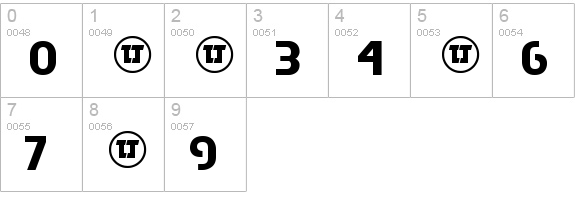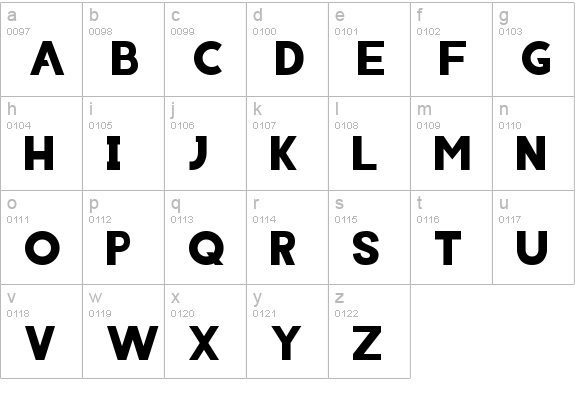
INICIO NORMAL Font Details
INICIO NORMAL is the standard, neutral variant in the INICIO typeface family \xE2\x80\x94 well suited to general body text, paragraphs, and standard typographic work.
INICIO NORMAL font is a modern and sophisticated typeface that exudes elegance and versatility. With its clean lines and balanced proportions, this font is perfect for a wide range of design projects, from branding and packaging to editorial and web design. The INICIO NORMAL font features a timeless appeal that is both contemporary and classic, making it suitable for various design styles. Its sleek and legible letterforms ensure readability, while its subtle details add a touch of refinement and character. One of the greatest advantages of the INICIO NORMAL font is that it is free to download. You can easily access this fantastic font at FontsMarket.com, where it is available for both personal and commercial use. Whether you are a professional designer or an aspiring creative, this font is a valuable asset that can elevate your designs to new heights. With its extensive character set and multiple font weights, INICIO NORMAL offers endless possibilities for creative expression. Whether you want to create eye-catching headlines or elegant body text, this font has you covered. Its versatility allows for seamless integration across different design mediums, ensuring consistency and coherence throughout your projects. The INICIO NORMAL font is a perfect blend of functionality and aesthetics, making it an excellent choice for designers and creatives alike. Its clean and modern design, combined with its accessibility and affordability (as it is freely available to download at FontsMarket.com), makes it a must-have font for any design toolkit. Embrace the beauty and versatility of the INICIO NORMAL font and let your creativity soar. Download it today from FontsMarket.com and unlock a world of design possibilities.